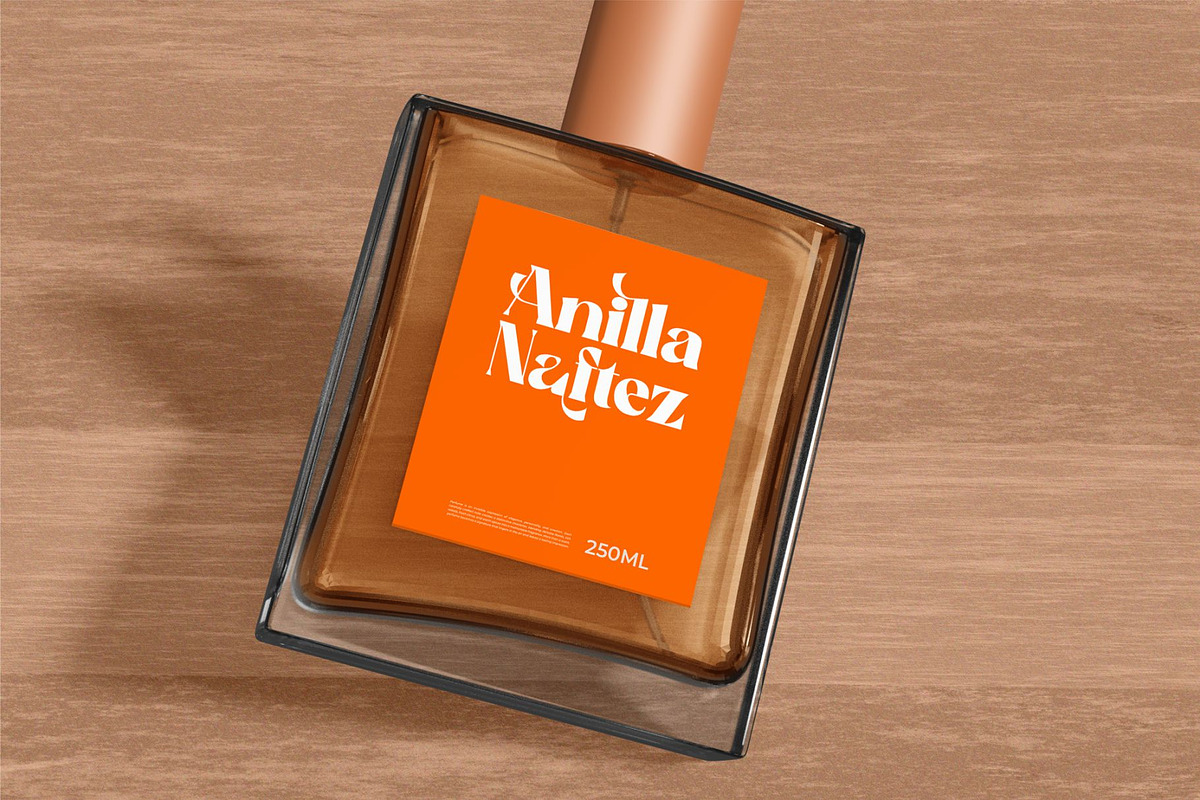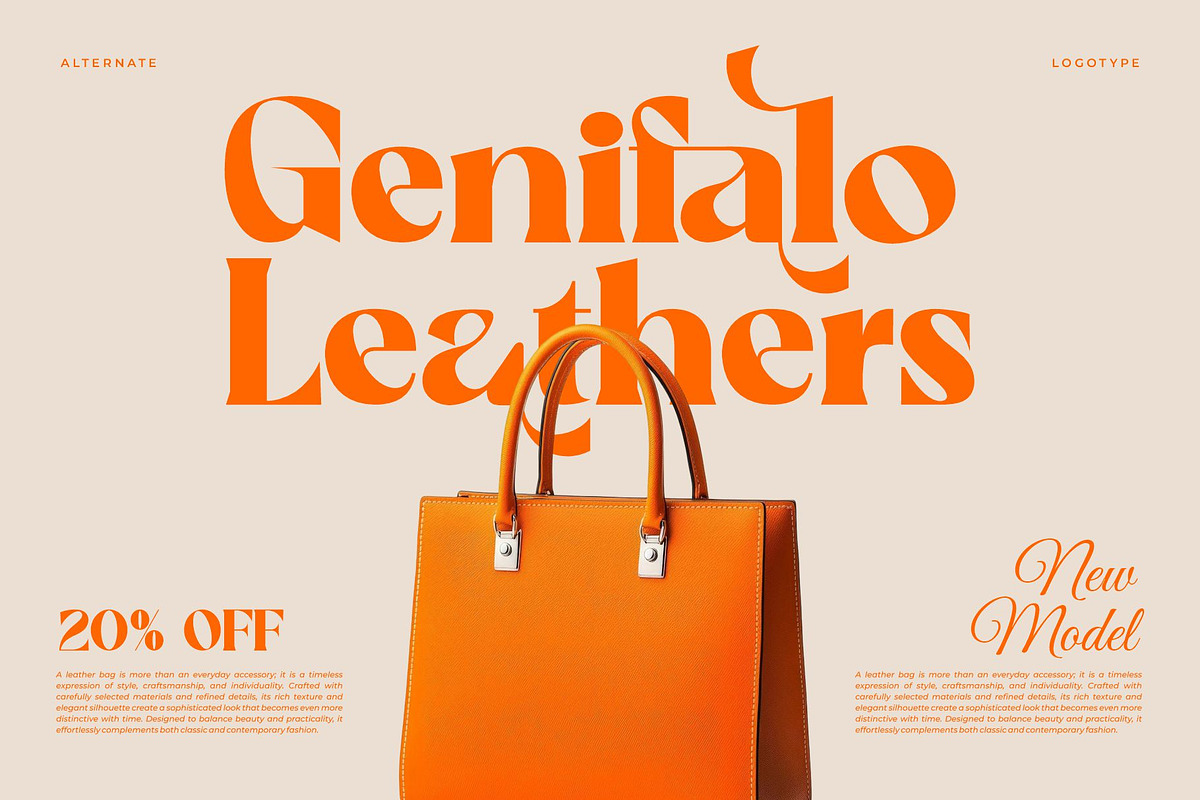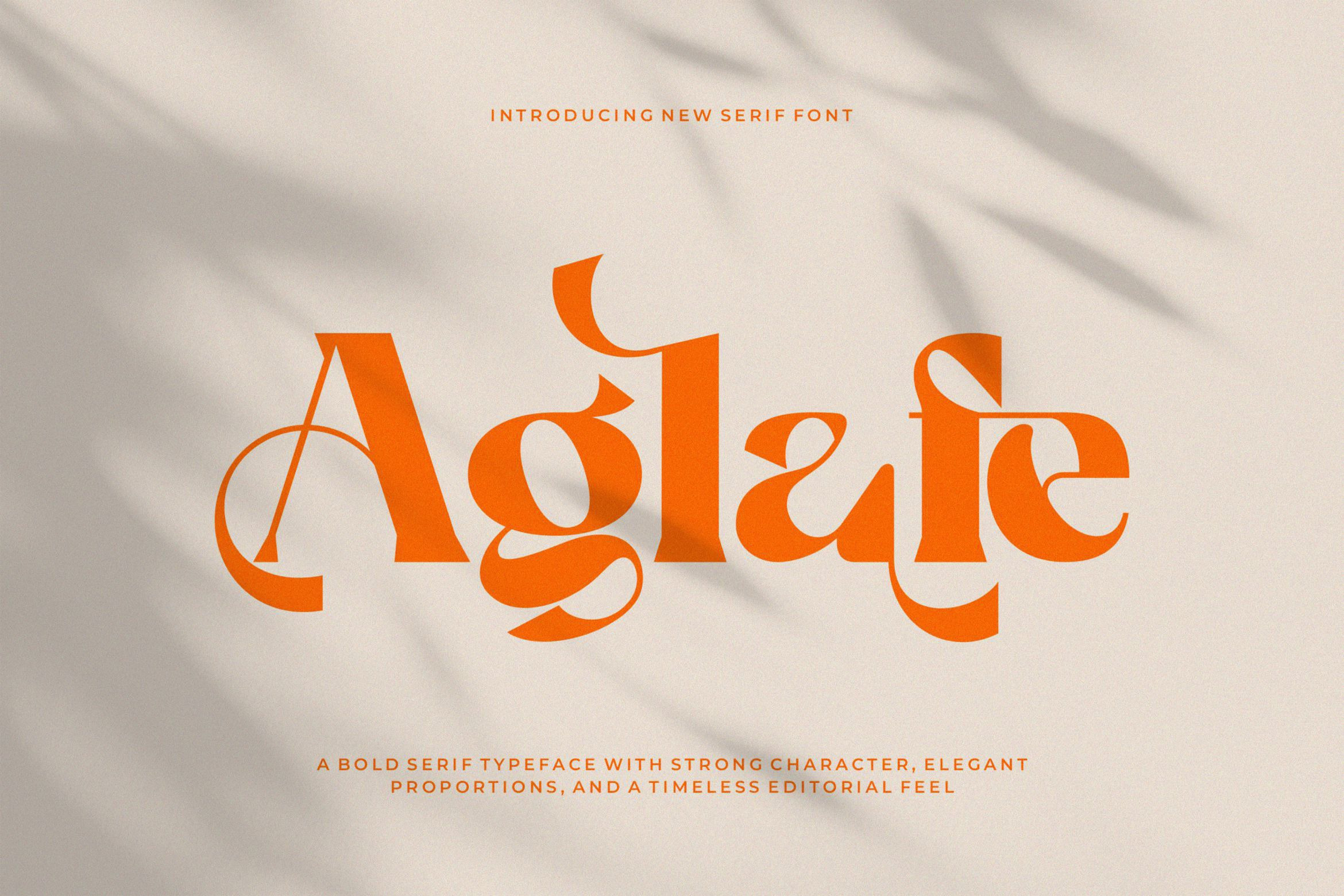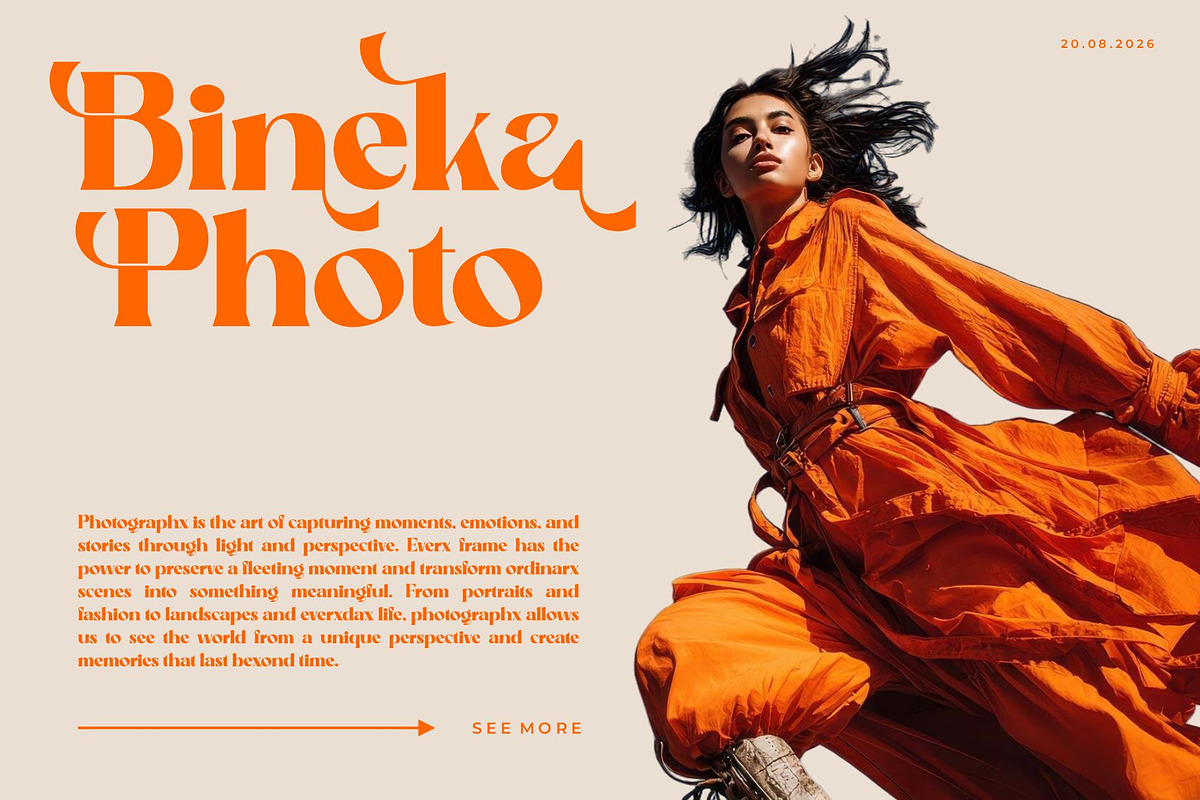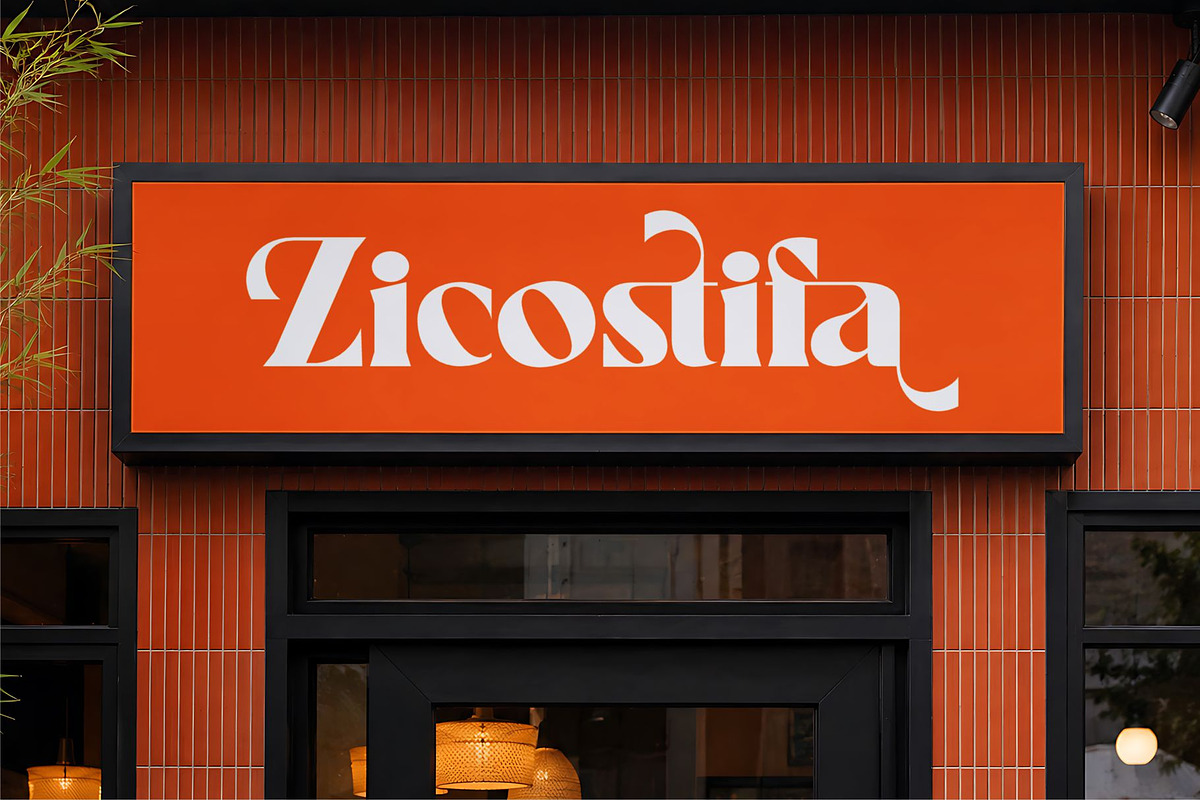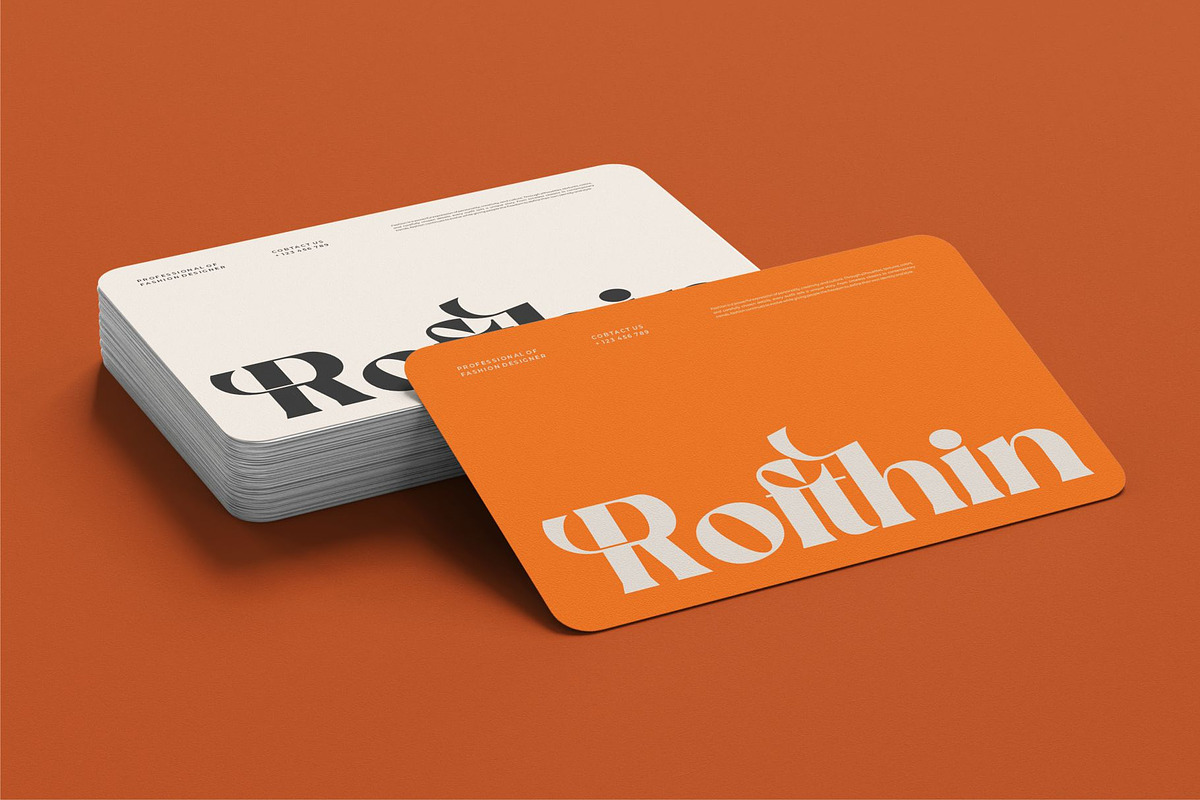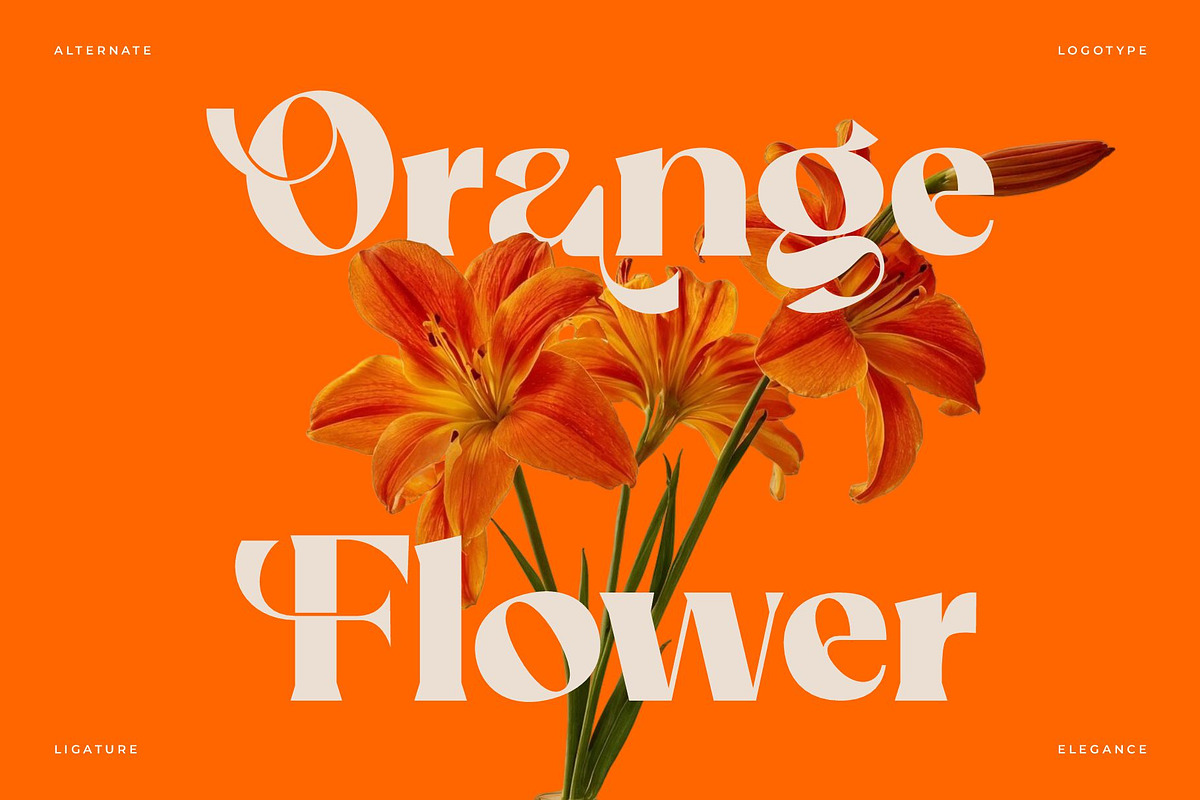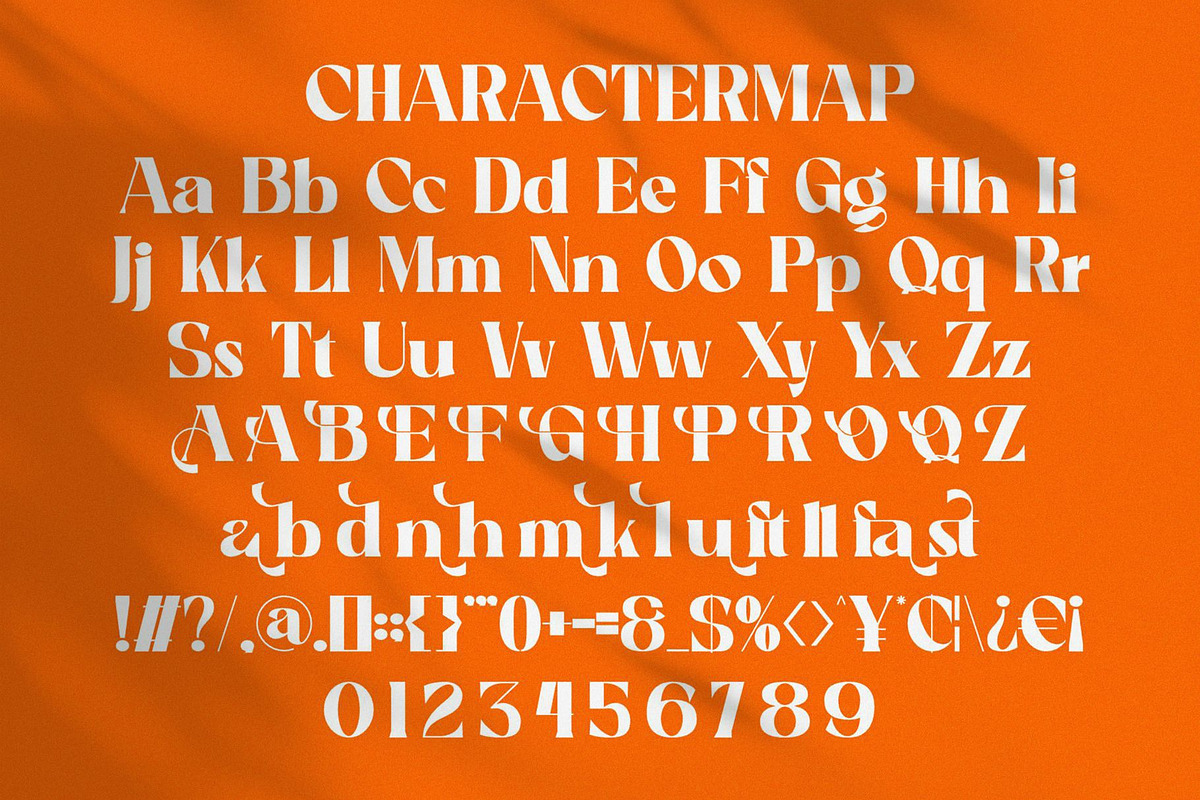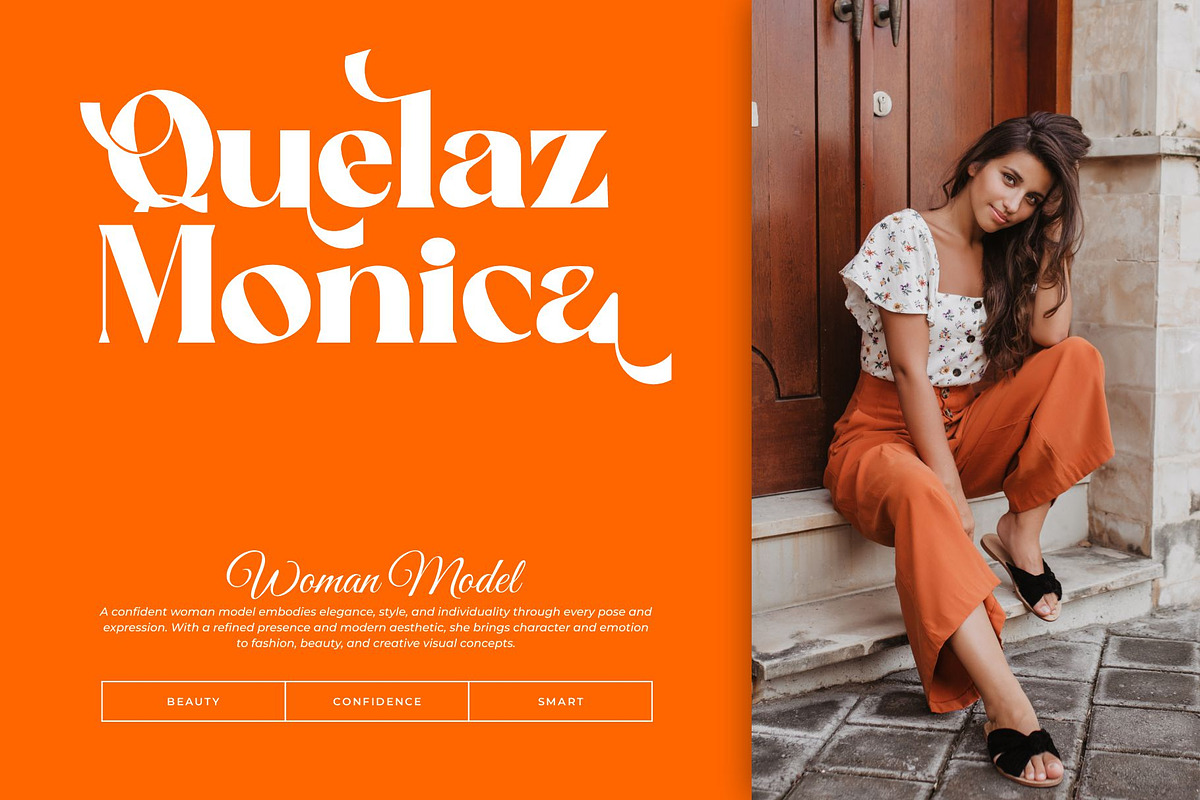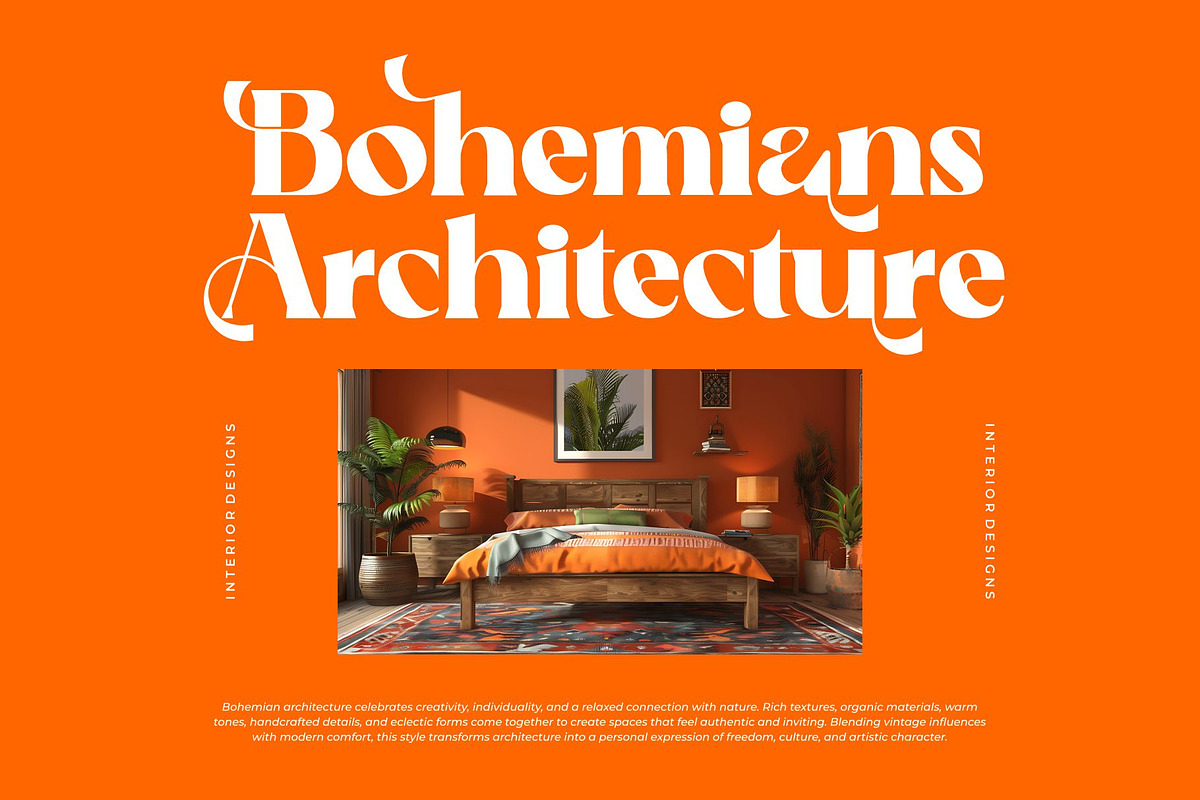
Aglafe || Elegant Strong Serif Font
Aglafe is a bold aesthetic serif font characterized by its strong and assertive lines. Its robust style conveys a luxurious, elegant, retro, and aggressive feel. The harmonious blend of boldness and subtlety makes Aglafe versatile, suitable for various design applications. With support for multiple languages and additional stylistic features, Aglafe enhances creativity in every design project.